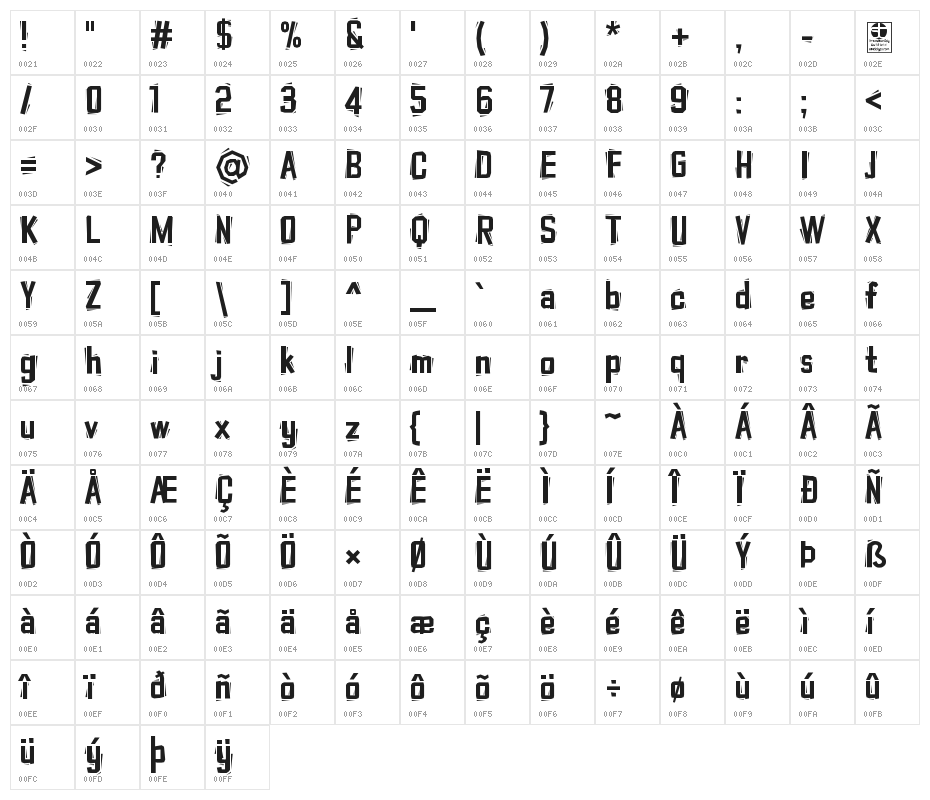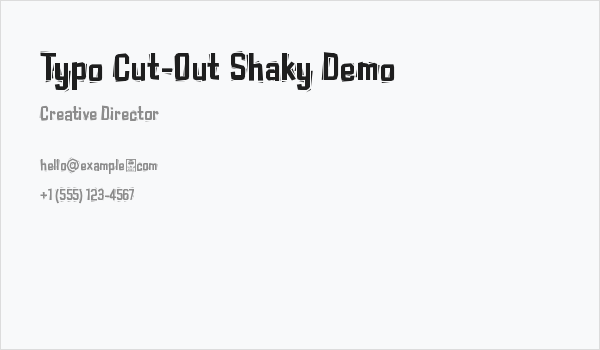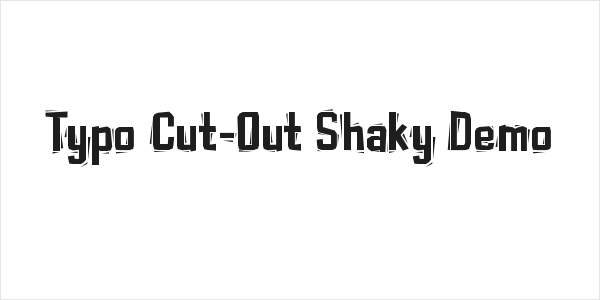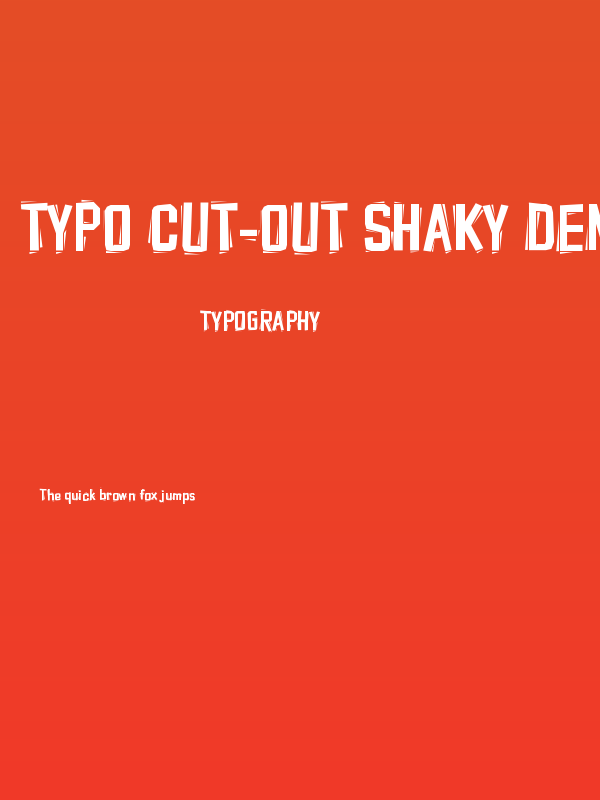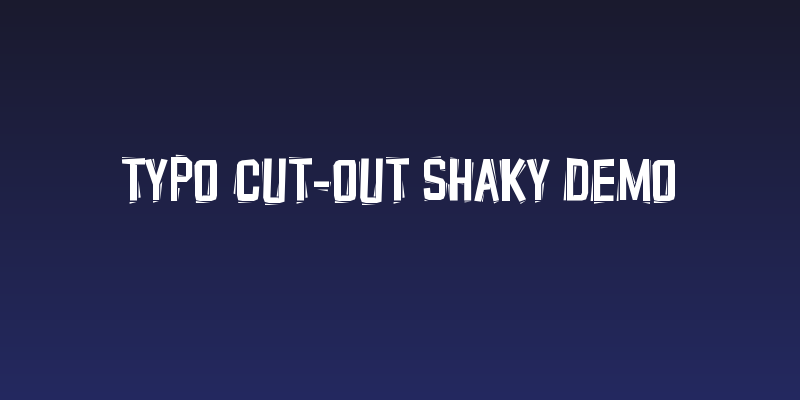
Typo Cut-Out Shaky Demo Font
Typo Cut-Out Shaky Demo Description
This font features a unique, edgy design with a cut-out, shaky appearance that gives it a dynamic and energetic feel. The letters are bold and angular, with irregular edges that create a sense of movement and spontaneity. The uppercase and lowercase characters maintain a consistent style, while the numerals and special characters complement the overall aesthetic. This font's distinctive look makes it ideal for projects that require a bold statement or a creative touch.
| Overall Style | Modern, Artistic |
| Proposed Projects | Ideal for posters, album covers, branding materials, and any project needing a bold, artistic flair. |